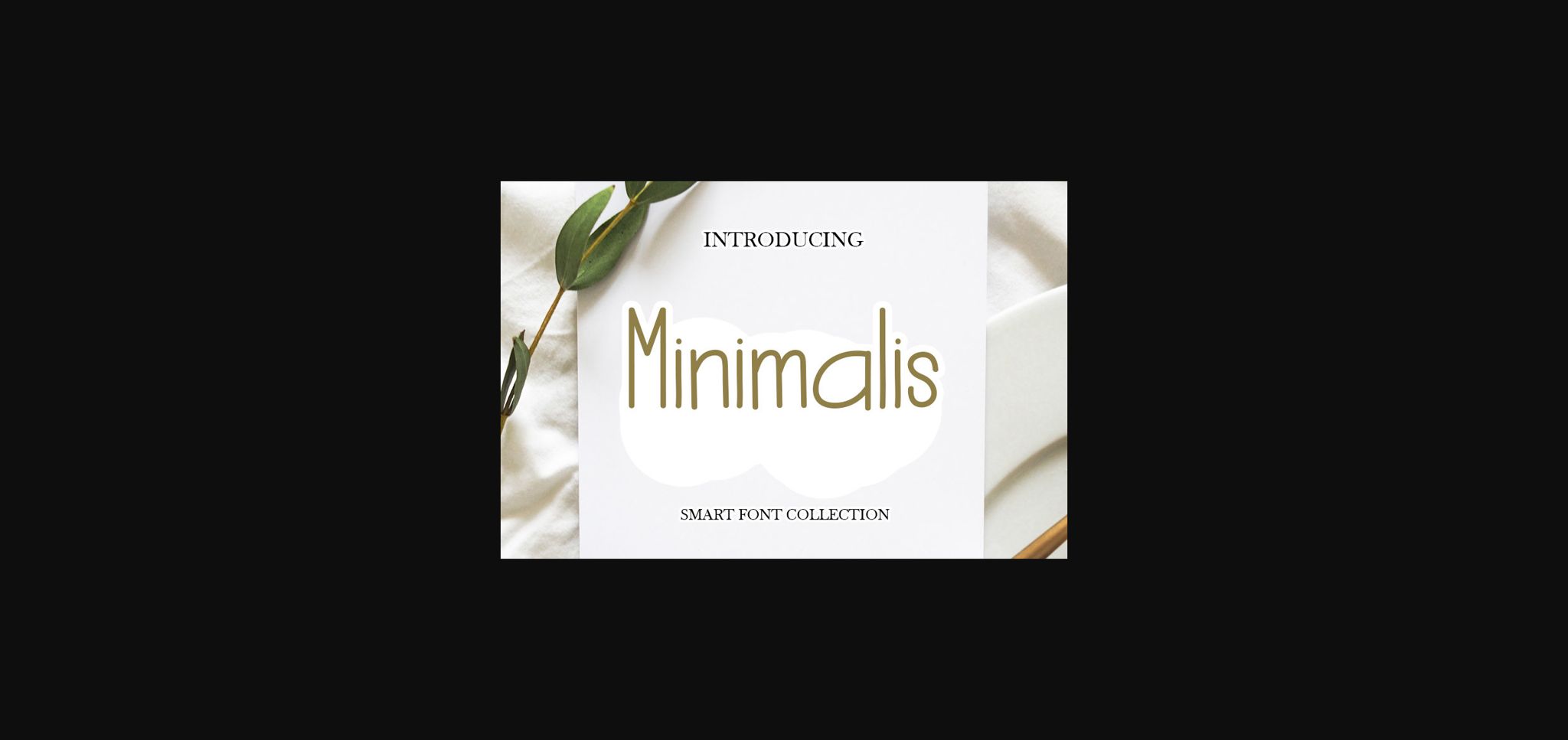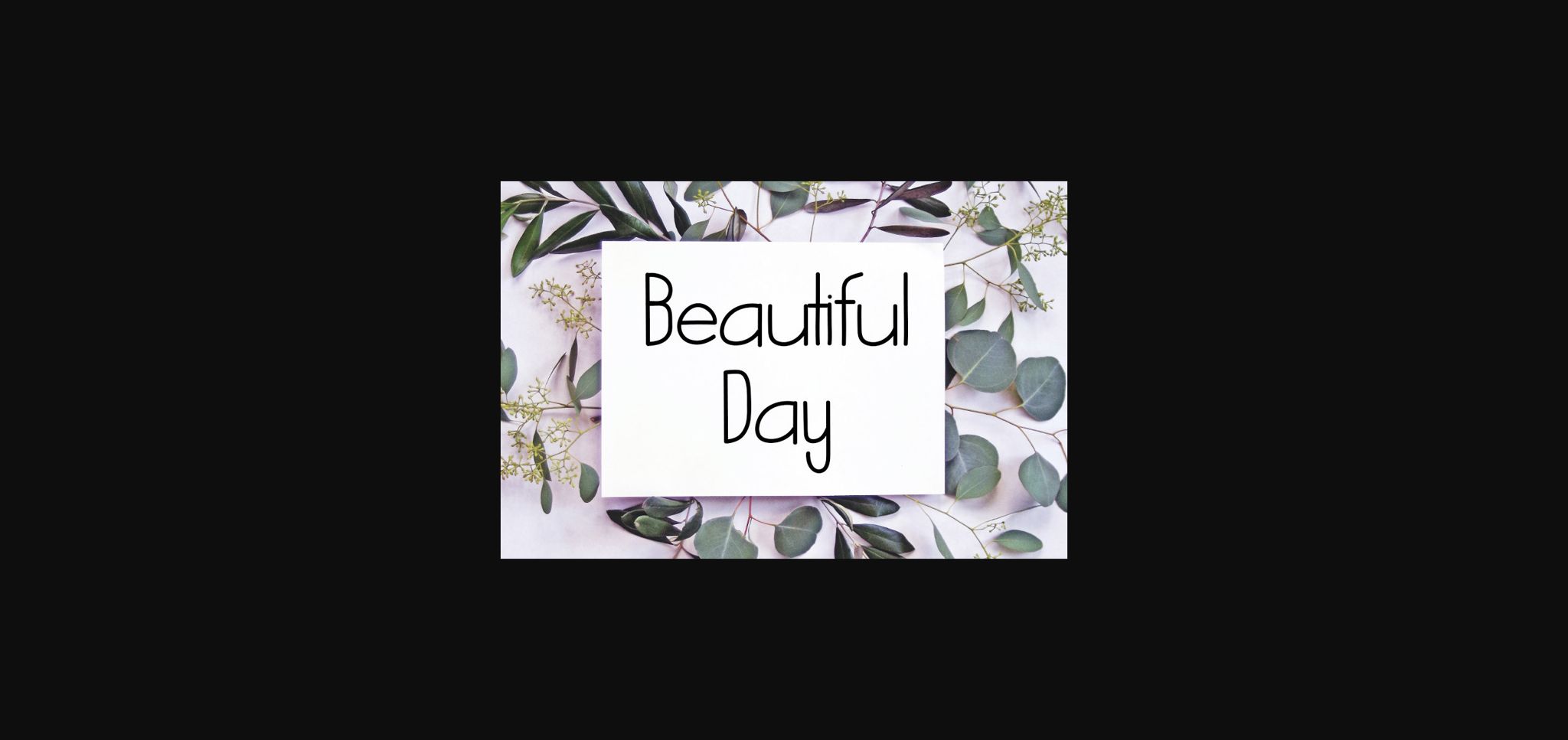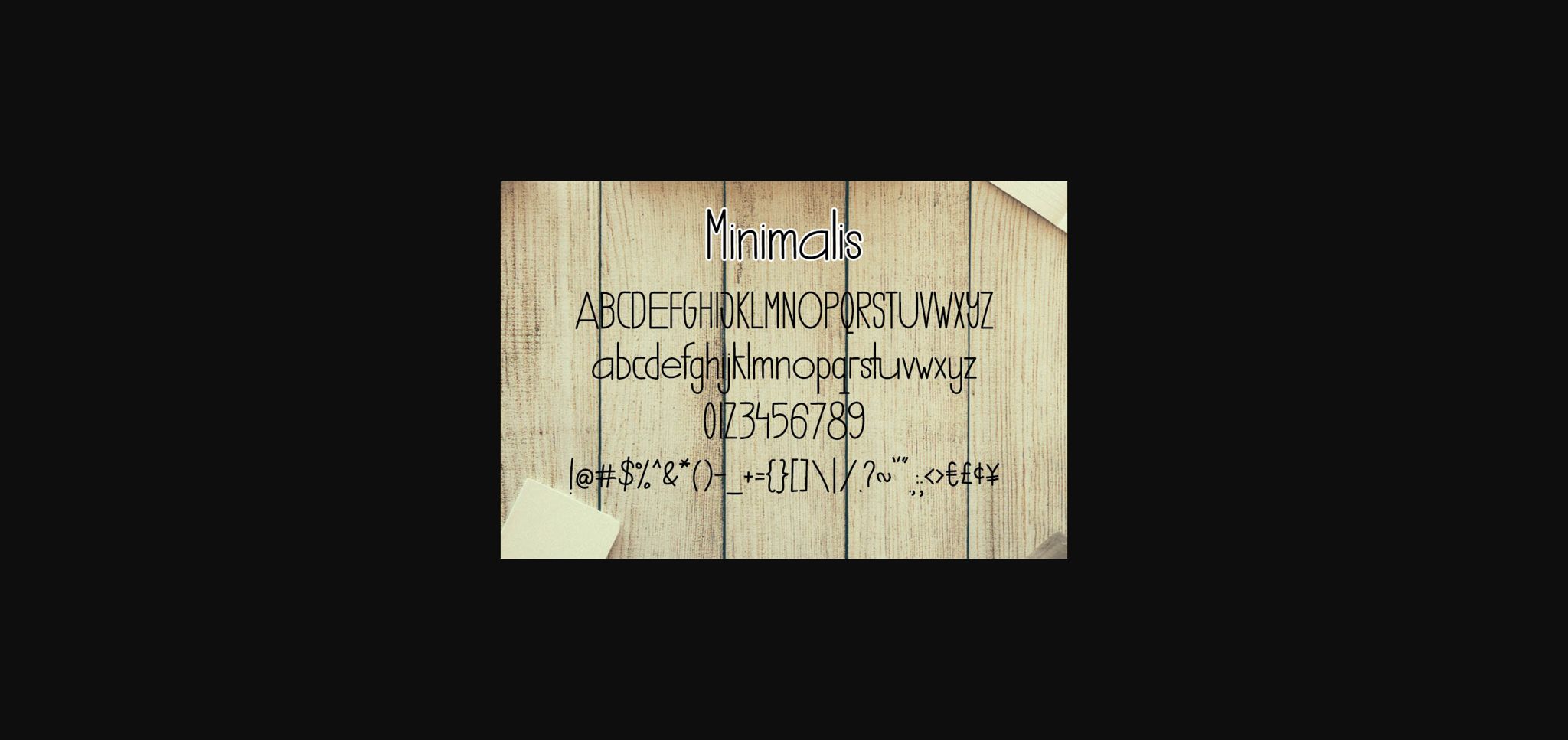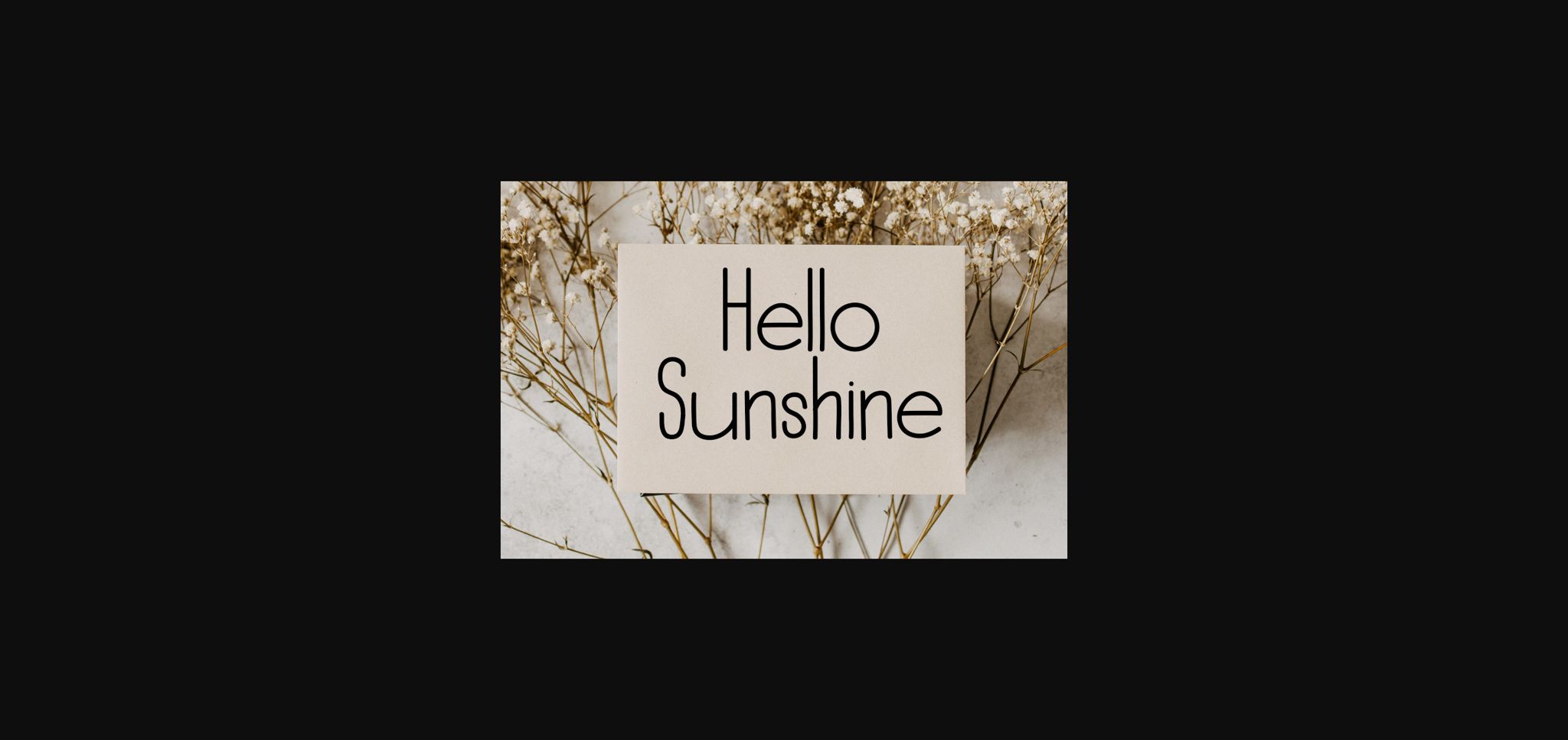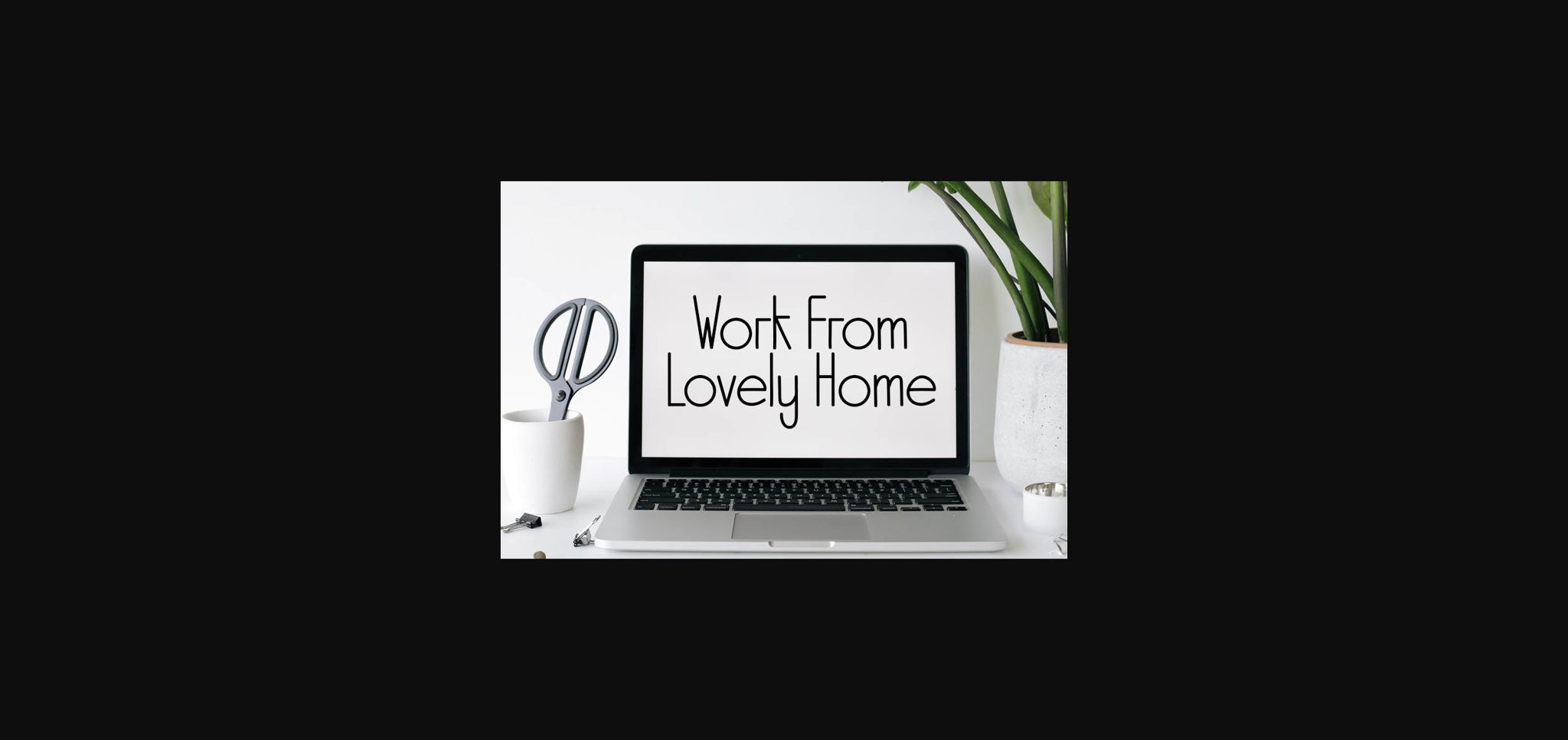
HomeSans Serif FontsMinimalis Font Sans Serif Fonts Minimalis Font FacebookXPinterestWhatsApp 1 of 7 ... Minimalis Font Poster 2... Minimalis Font Poster 3... Minimalis Font Poster 4... Minimalis Font Poster 5... Minimalis Font Poster 6... Minimalis Font Poster 7... About Minimalis Font Minimalis is a cute and simple sans serif font. It looks adaptable and sweet on a variety of design ideas so add it confidently and make your creations look outstanding. DOWNLOAD NOW People also explored Salvations Font Quickstep Font Cherry Angela Script Font Anchromatic Font Simple Green Font Kilimanjaro Font Just King Font Hello Letter Font Sudoku 279 0 TagsMinimalis Font Previous articlePulchra FontNext articleSan Jose Font LEAVE A REPLY Cancel reply Comment: Please enter your comment! Name:* Please enter your name here Email:* You have entered an incorrect email address! Please enter your email address here Website: Save my name, email, and website in this browser for the next time I comment. Personal Use Free Brittish State Personal Use Free Read more about this font The Most Beautiful Gift Personal Use Free Read more about this font Klotee Personal Use Free Read more about this font Street Cred Personal Use Free Read more about this font BLOG How to Cut Any Font on Cricut: Convert a Font to SVG (Free) Turn any font into a clean SVG so it cuts crisp on Cricut - a quick 3-step workflow using a free font-to-SVG tool. Best Fonts for YouTube Videos: Make Your Thumbnails Stand Out 5 Fonts That Will Dominate Design Trends in 2026 Top 10 Handwritten Fonts That Elevate Your Designs